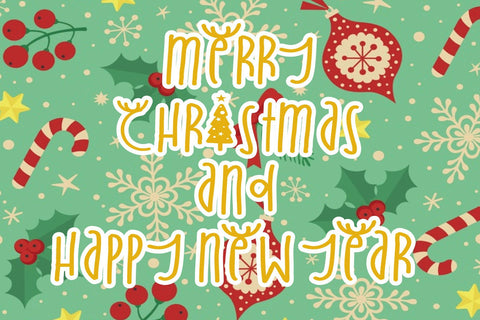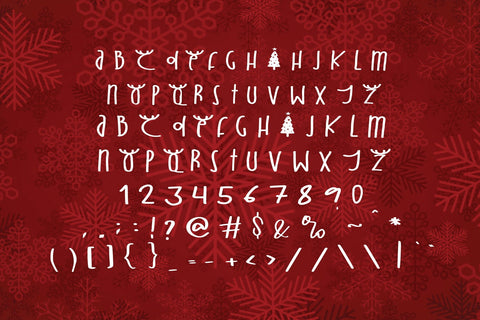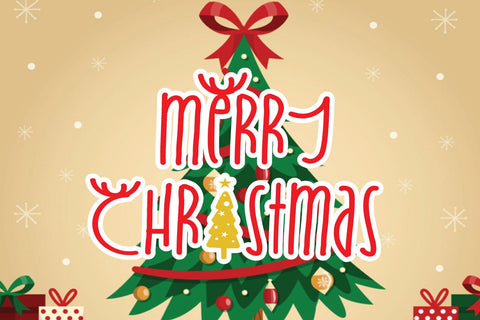
Merry Christmas Santa
suitable for any projects such as: logos, branding projects, homeware designs, product packaging, mugs, quotes, posters, shopping bags, t-shirts, book covers, name card, invitation cards, greeting cards, label, photography, watermark, special events, and all your other lovely projects that need a beautiful calligraphy taste.